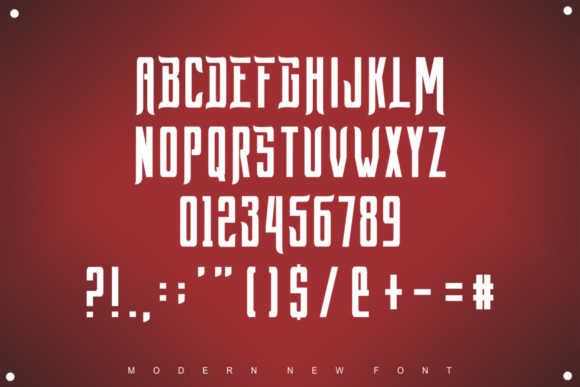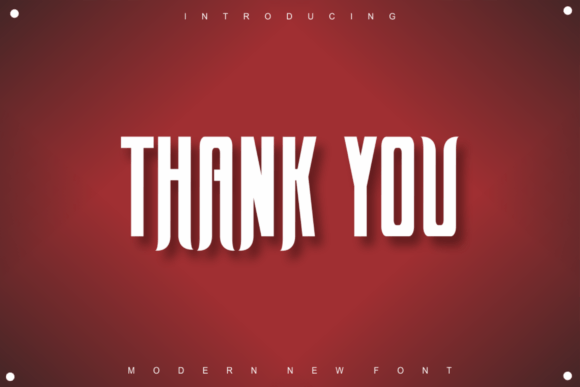
Pidafin
Pidafin: A Modern and Bold Slab Serif Font
Pidafin is a modern, bold, and authentic slab serif font. It’s great for many branding projects, including logos, t-shirt prints, export materials, and more. Plus, this font stands out in various settings.
Key Features of Pidafin
• Modern Look: Offers a fresh and current style for today’s designs.
• Bold Design: Makes a strong visual impact, perfect for grabbing attention.
• Authentic Feel: Brings a genuine and unique touch to your work.
• Slab Serif Style: Features thick, block-like serifs typical of this font type.
Best Uses for Pidafin
Pidafin works especially well for:
When using Pidafin in your designs, keep these tips in mind:
• Use for headlines or short text to show off its bold style.
• Try different sizes to highlight the font’s unique features.
• Pair with simpler fonts for longer text to create contrast.
• Use its versatility to make designs that stand out in various media.
To sum up, Pidafin is a great choice for designers who want a modern and bold slab serif font. It looks great in many different settings, making it useful for lots of creative projects. So, whether you’re making brand materials, designing t-shirts, or creating export items, Pidafin offers the perfect mix of modernity and boldness.
Moreover, Pidafin’s unique design shines in various branding contexts. For instance, from logos to ad campaigns, this font can make your projects better with its special style. Also, its bold yet readable look works well in designs that aim to make a big visual impact while staying authentic.
In conclusion, Pidafin truly captures the essence of modern, bold design in slab serif lettering. Its ability to work well in different uses shows how it can fit various creative needs. Therefore, for those wanting to add a touch of bold charm to their work, Pidafin can improve themed creations with its unique style. Ultimately, it’s perfect for designers aiming to make a strong, modern impact across many branding and design projects.